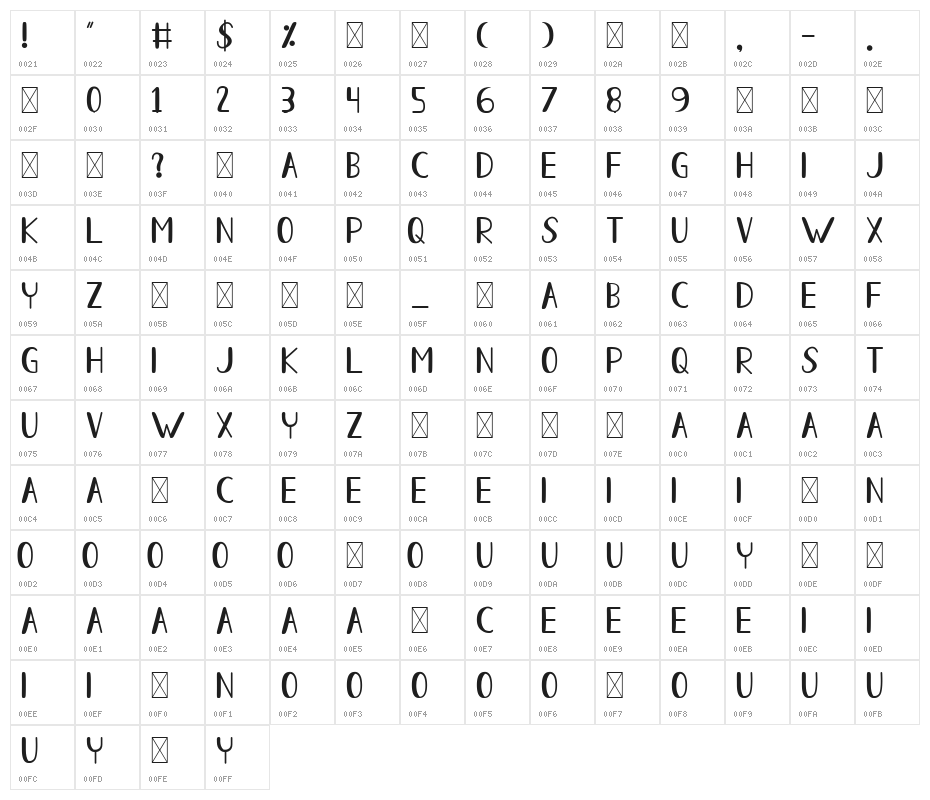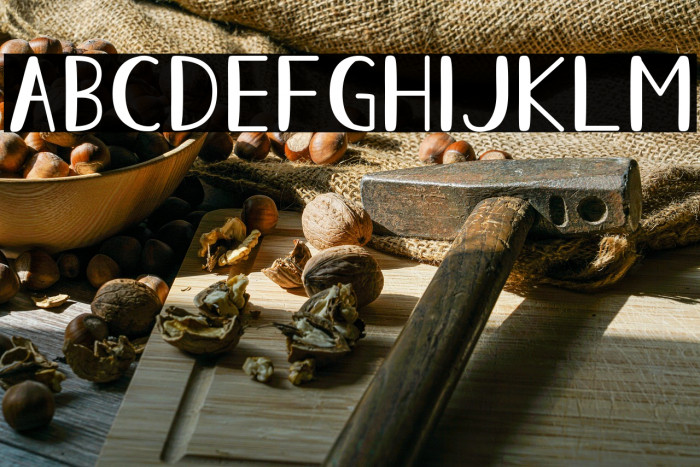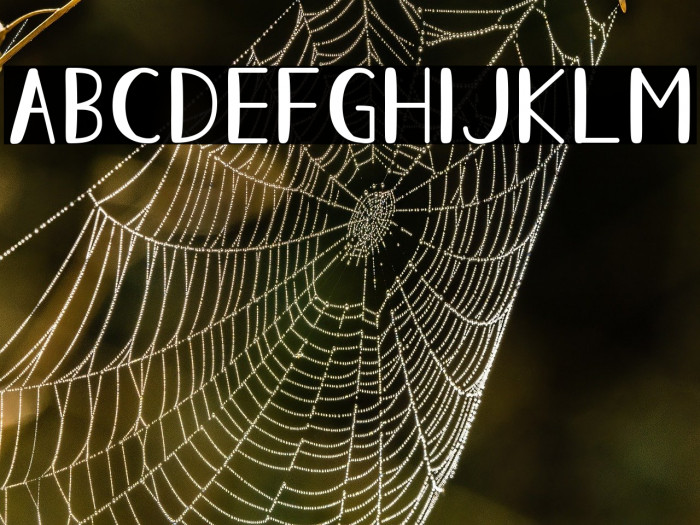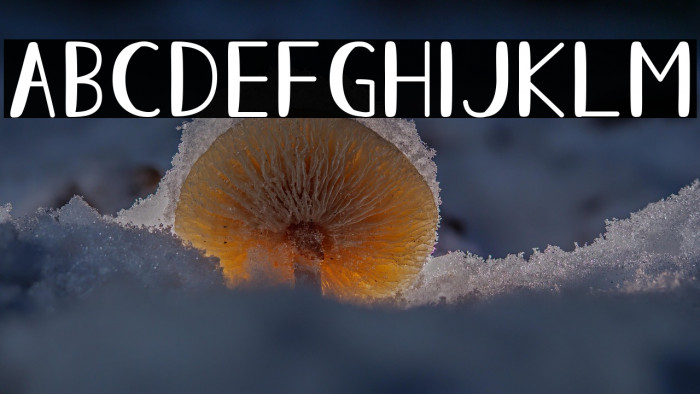
Allure Of The Sun Font
Allure Of The Sun Description
This font features a playful and artistic style, characterized by its unique and slightly irregular letterforms. The uppercase letters have a whimsical quality, with some characters featuring unexpected curves and angles, adding a sense of movement and energy. The lowercase letters maintain this playful aesthetic, with a consistent stroke width that provides a cohesive look. The numerals are bold and easy to read, with a slightly rounded appearance that complements the overall style. Special characters are creatively designed, maintaining the font's artistic flair. This font is ideal for projects that require a touch of creativity and individuality.